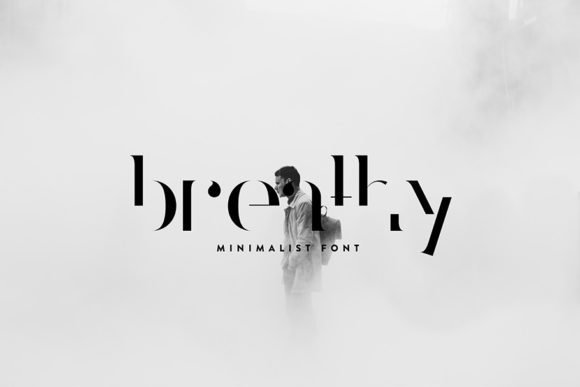
Introduction to Breathy Font
Breathy is a clean and modern display font featuring unfinished characters for a mysterious look.
Add it to your most creative ideas and watch how it makes them stand out .
Key Features of Breathy Font